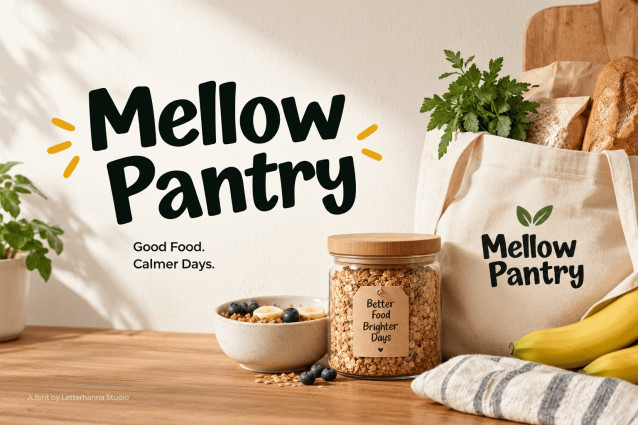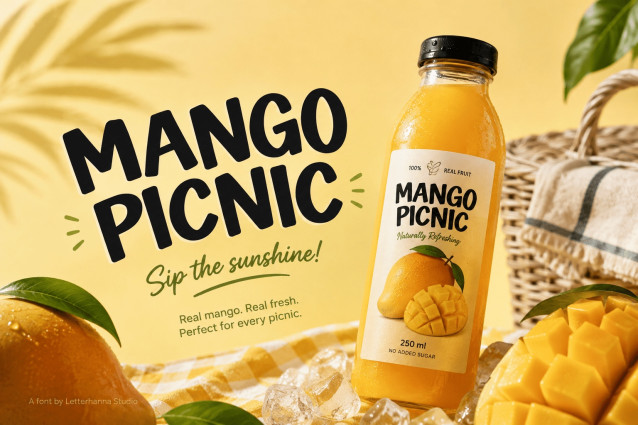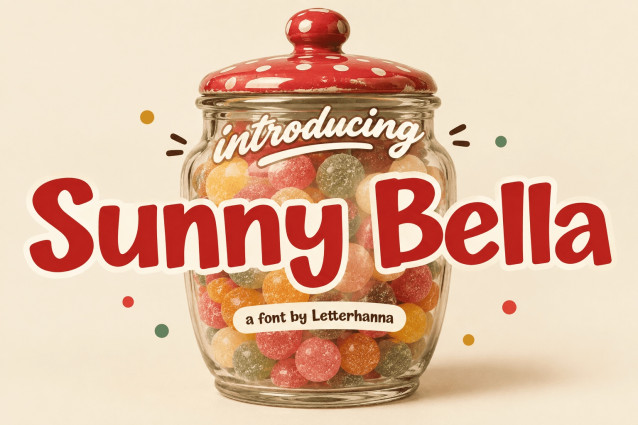
Meet Sunny Bella, a Cute Font designed to turn ordinary words into cheerful visual moments. Inspired by colorful candy jars, sunny afternoons, refreshing mango drinks, and playful packaging, this typeface brings instant personality to your designs.
Sunny Bella combines the bold presence of a Chunky Font with the friendly energy of a Playful Font. Its rounded, expressive letterforms feel warm, casual, and approachable, making your message look less ordinary and more memorable.